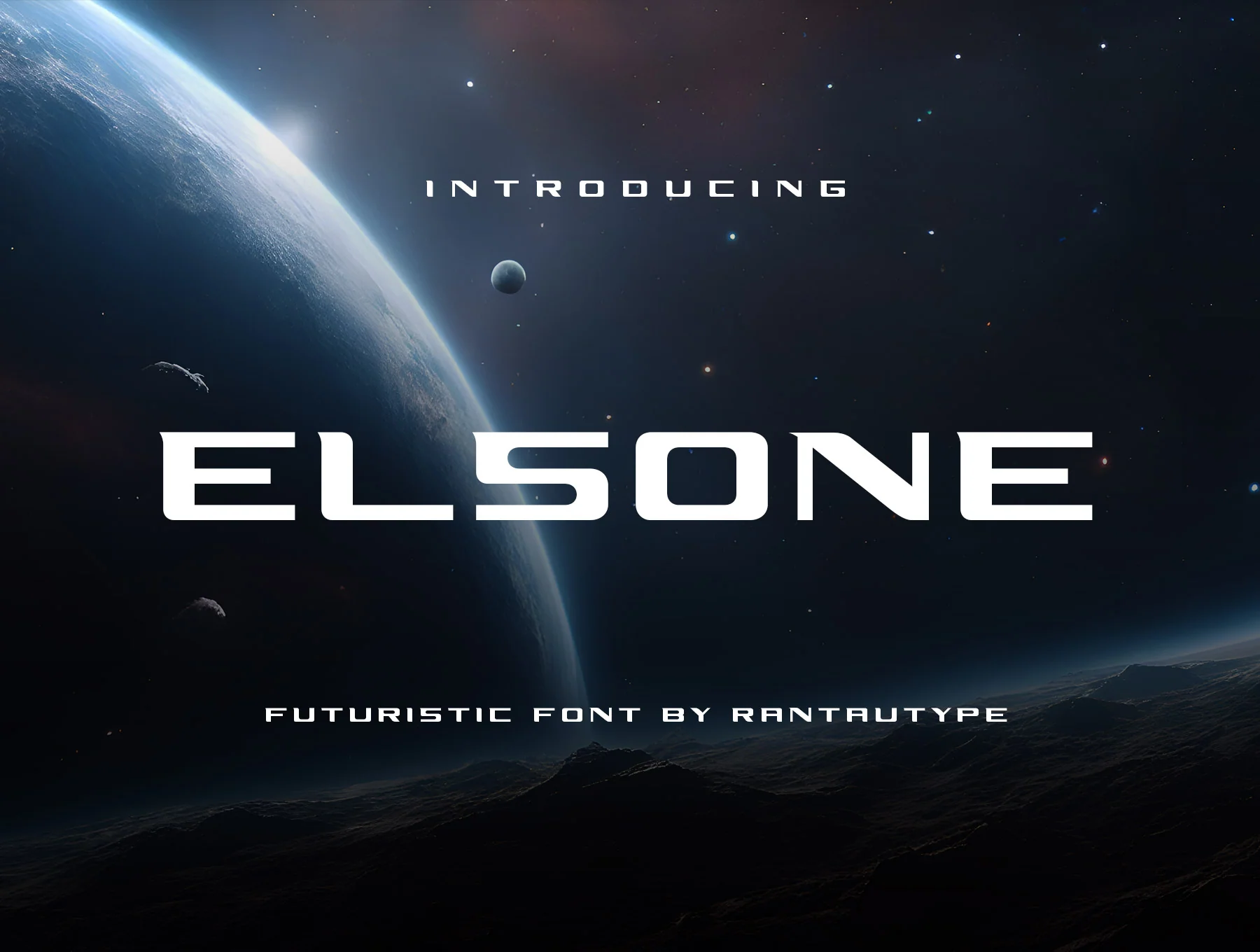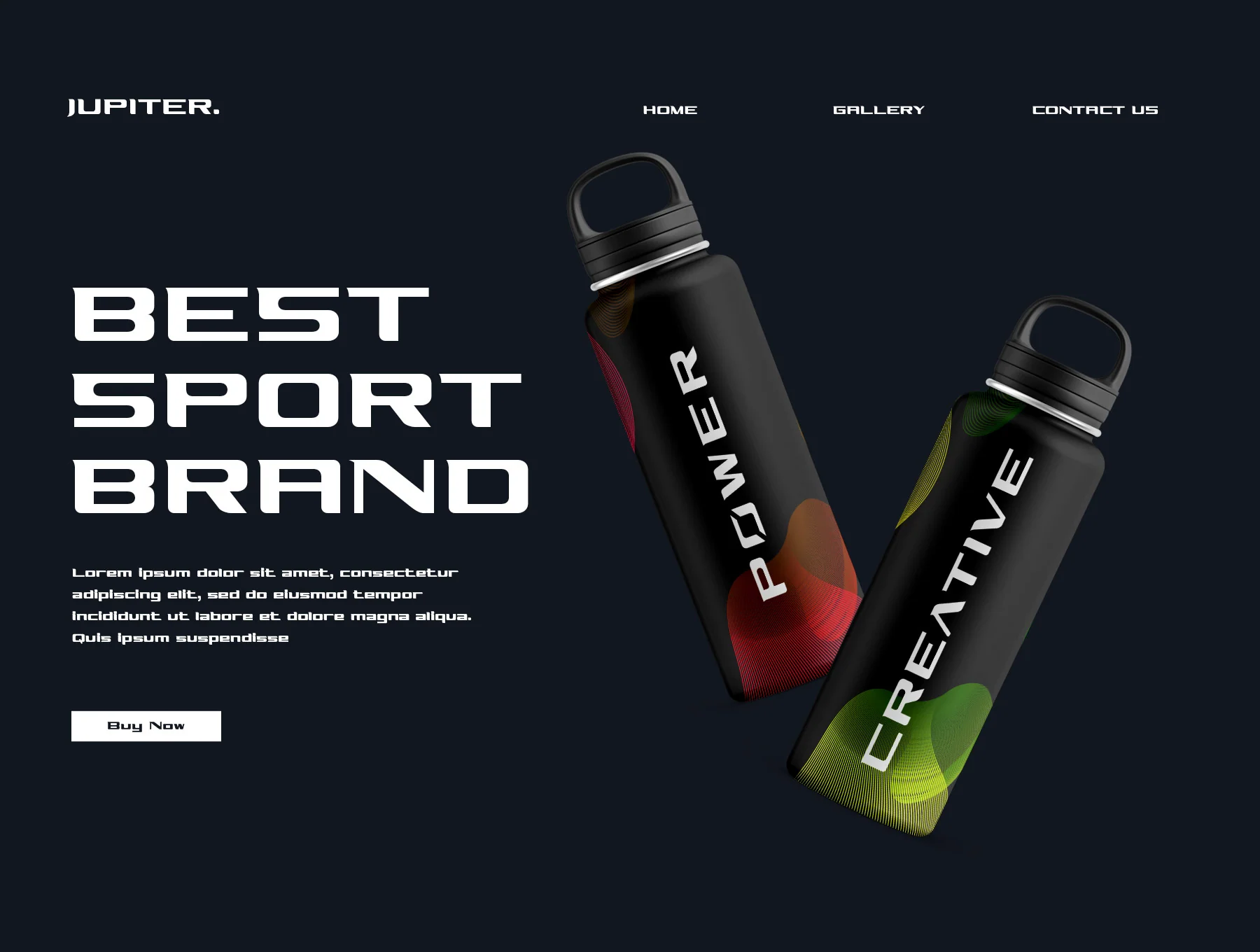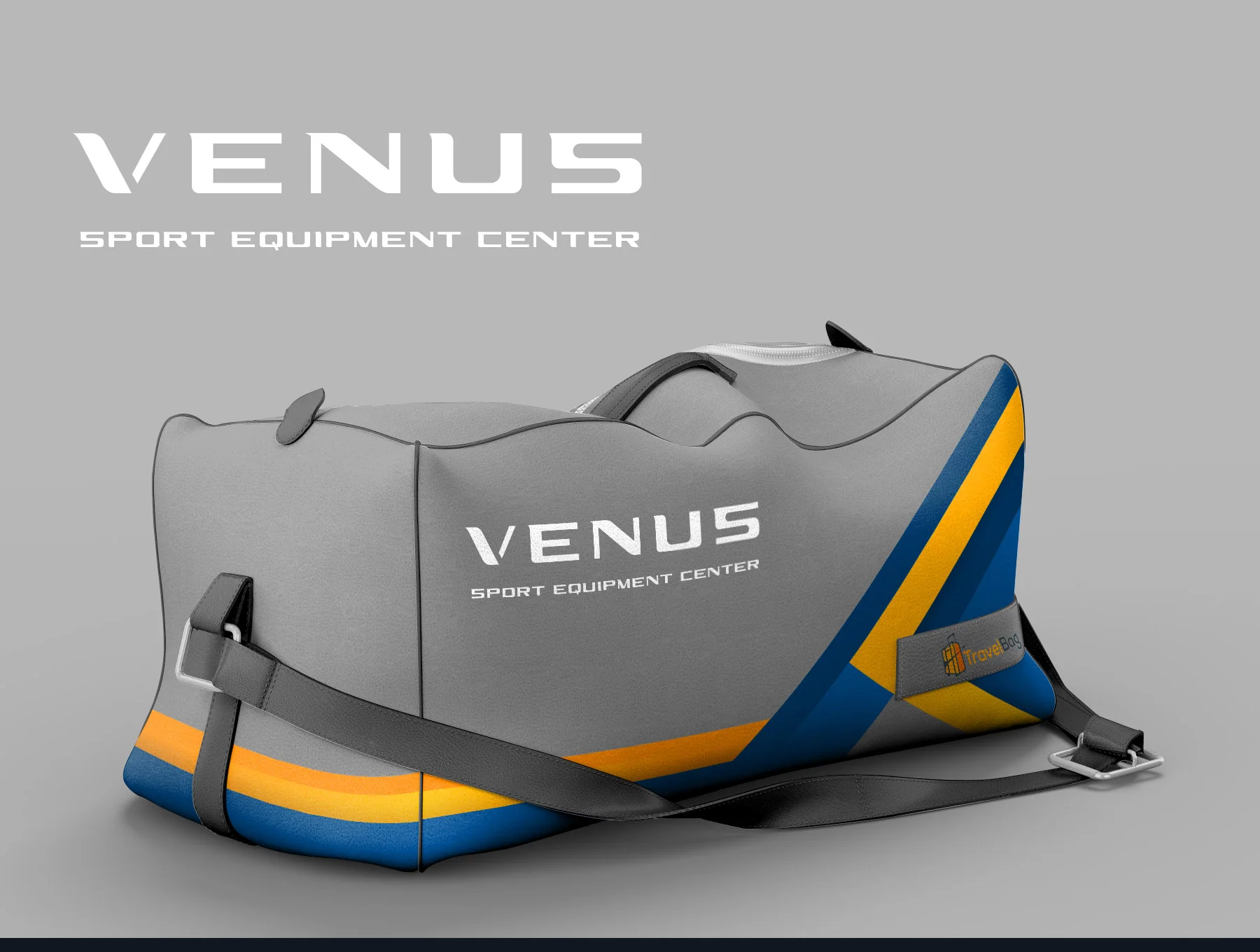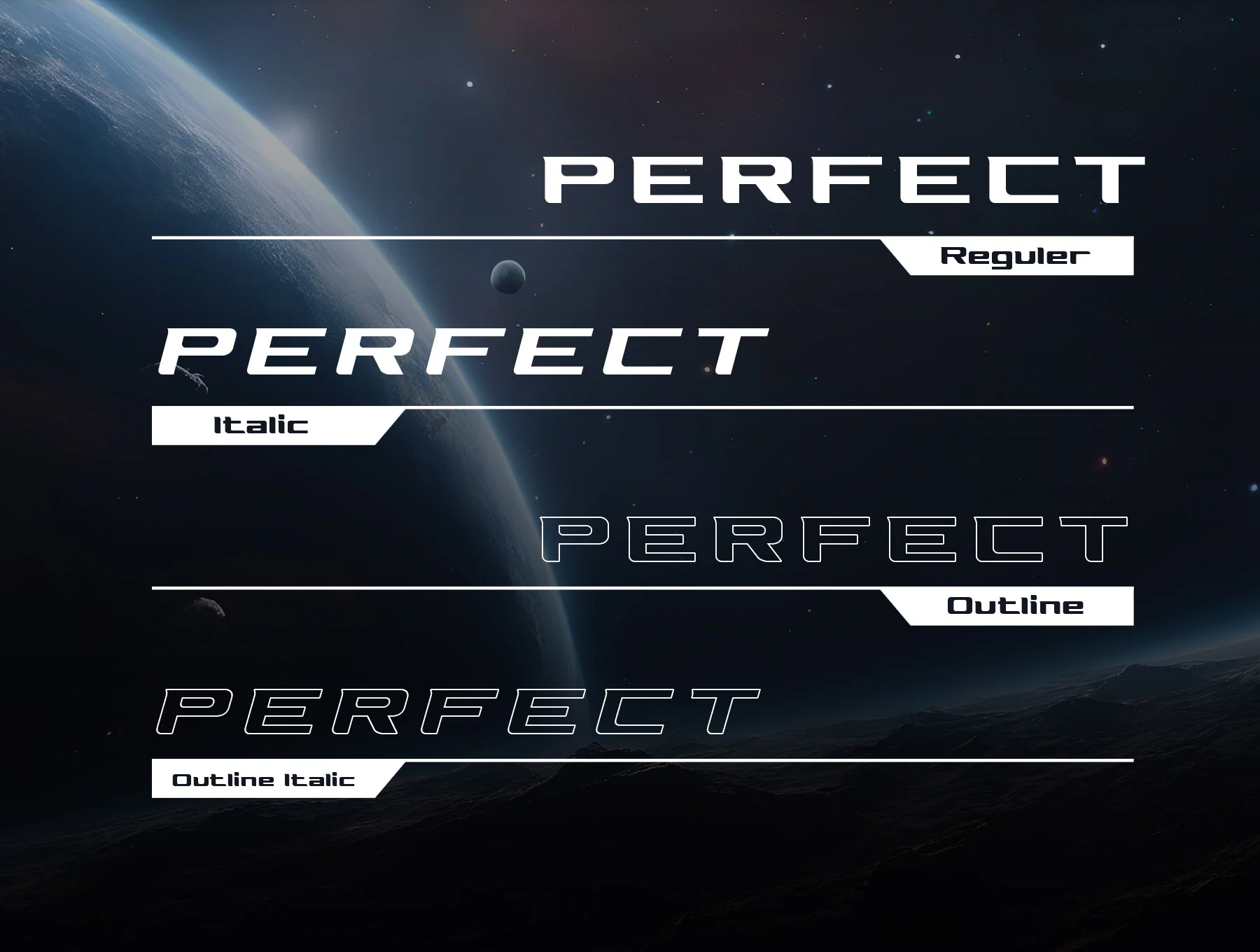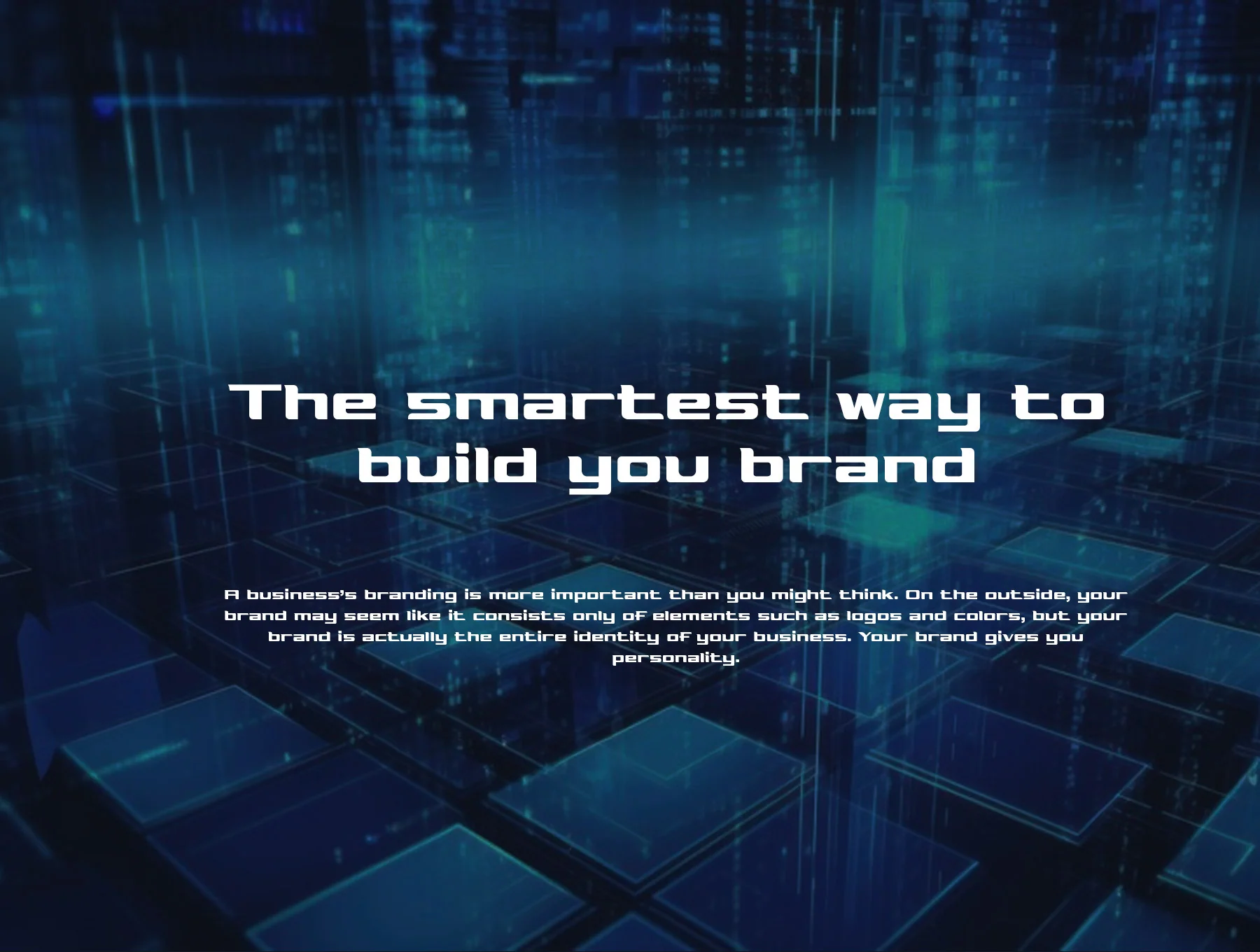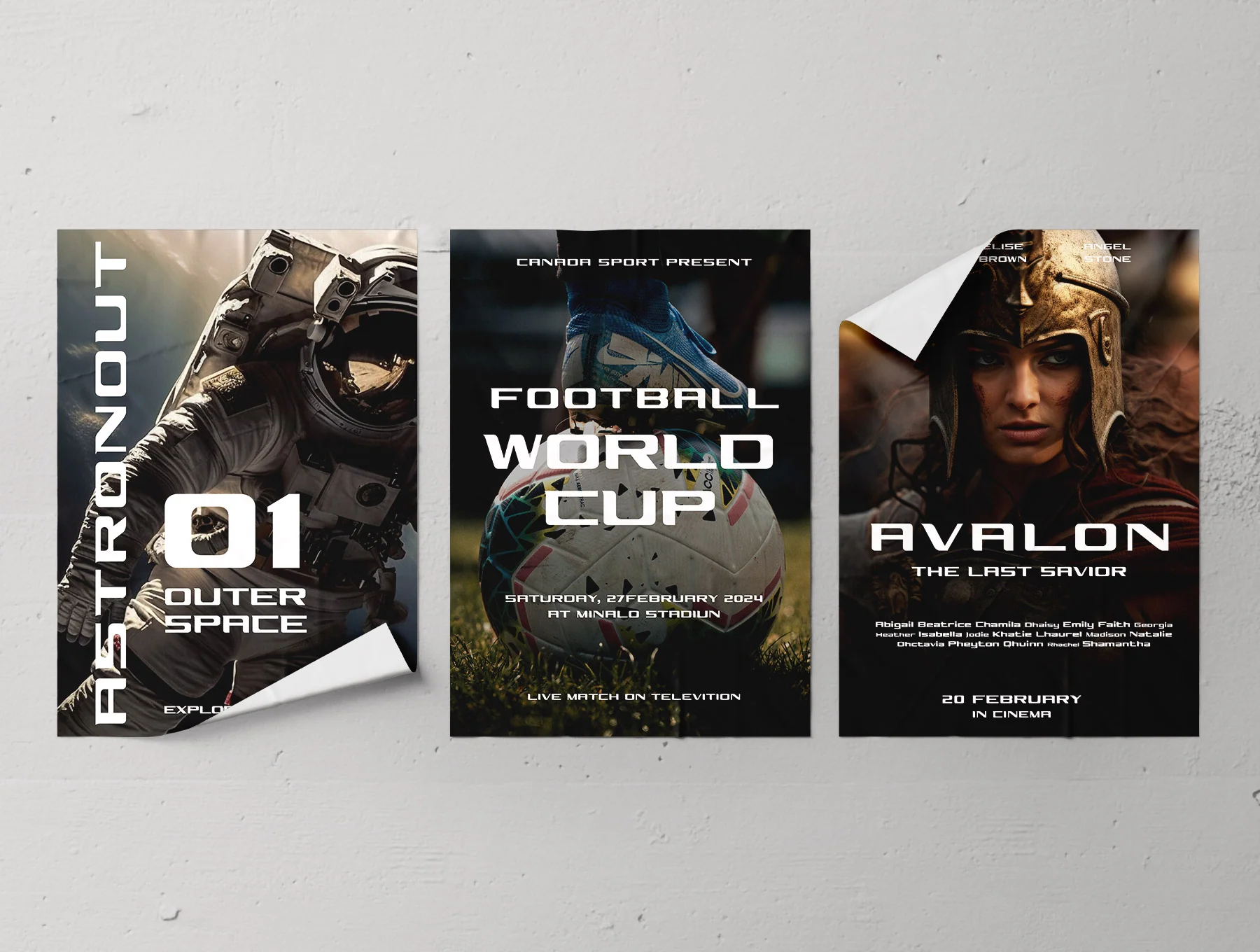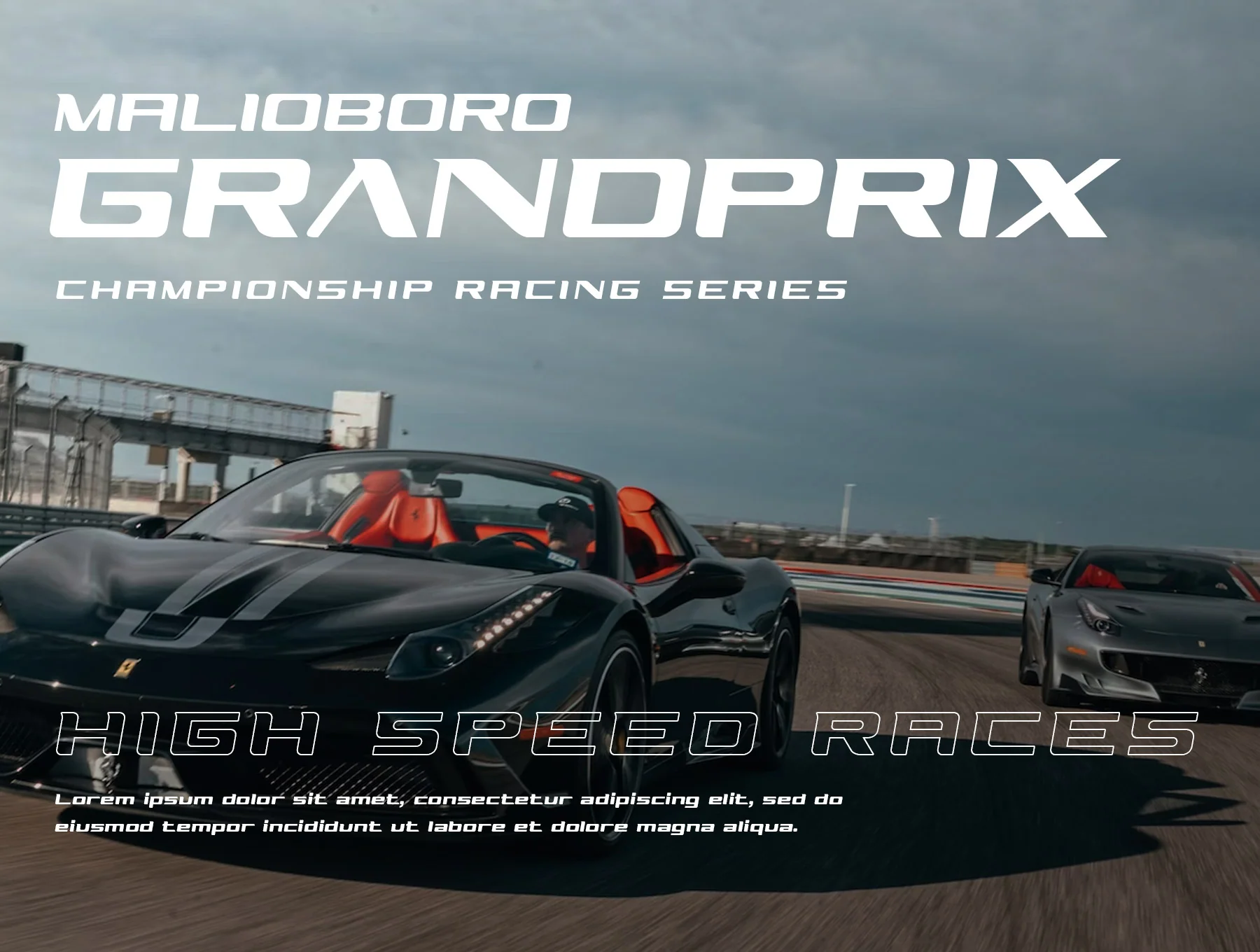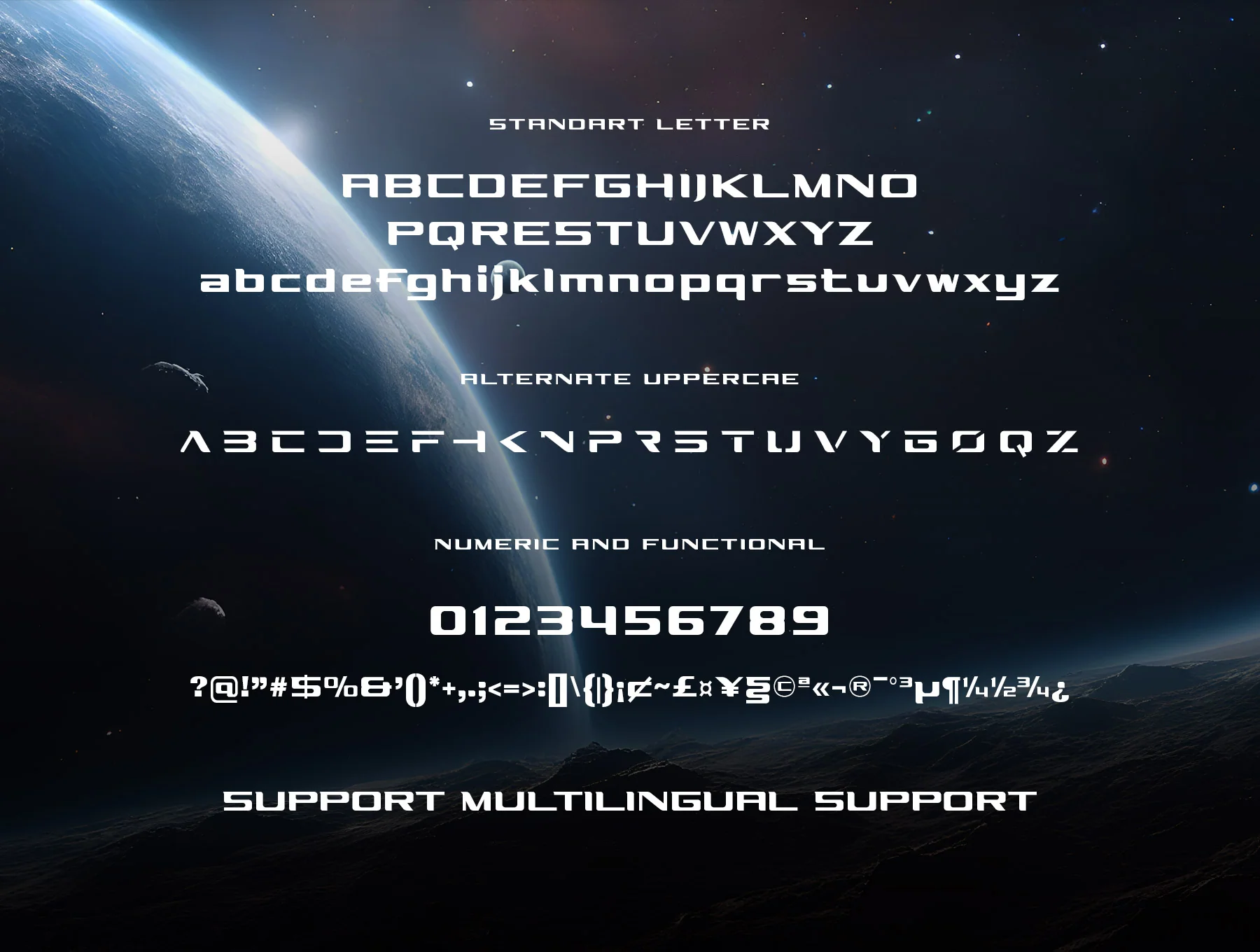
Elsone Futuristic Font
Sci-Fi Typeface
Basic uppercase and lowercase letters from A–Z
Numerals and functional symbols included
Distinctive alternate capital letters
Elsone is a sci‑fi inspired futuristic typeface with bold visual impact, outline styles, ligatures, alternates, OpenType features, numerals, punctuation, and multilingual support. Includes regular, italic, outline, and outline italic in OTF, TTF, WOFF, and WOFF2. Ideal for logos, games, posters, films, packaging, sports branding, ads, events, business cards, and digital concepts.